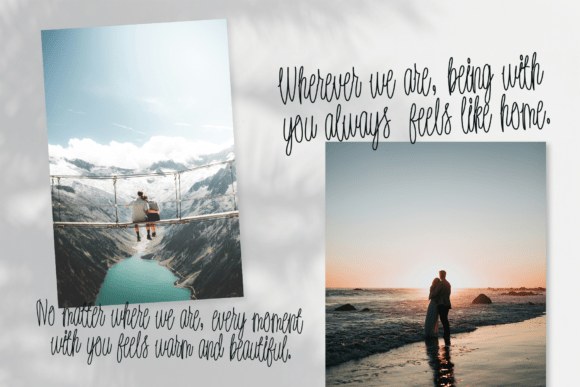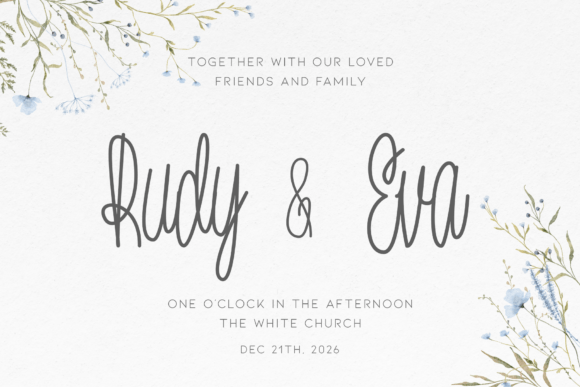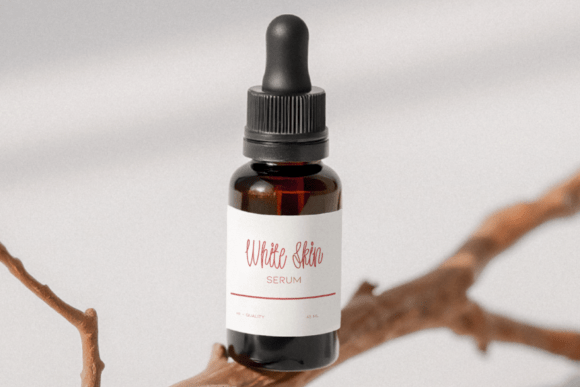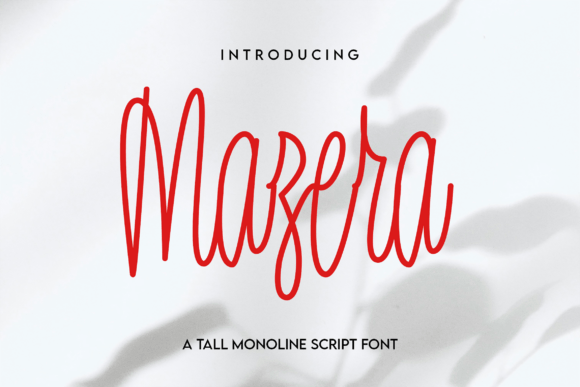
Introduction to Mazera Font
Mazera is a tall monoline script font designed with a clean and elegant handwritten style.
Its smooth, consistent strokes and elongated letterforms create a modern and sophisticated look, making it perfect for refined visual compositions The natural flow of the lettering brings a personal and graceful touch, while maintaining excellent readability for headlines and short text.